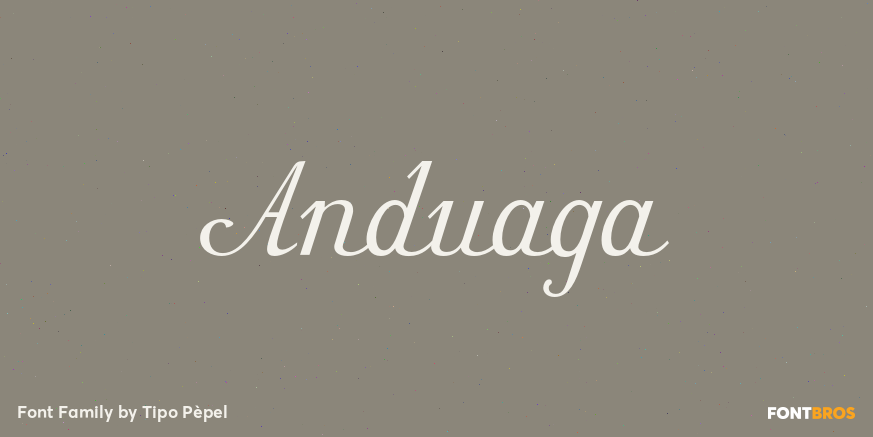
About Anduaga
The Anduaga typeface is the interpretation of the calligraphy that Joseph Anduaga proposed for teaching the first letters in the book published in 1780 Arte de escribir por reglas y sin Muestras… printed in the Imprenta Real in Madrid. Anduaga proposed…